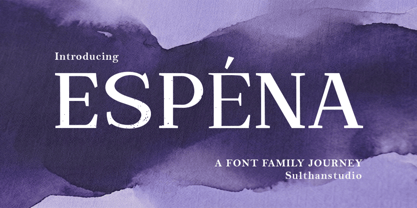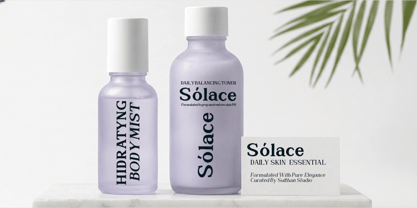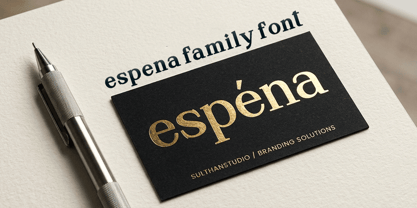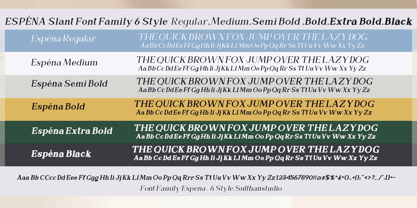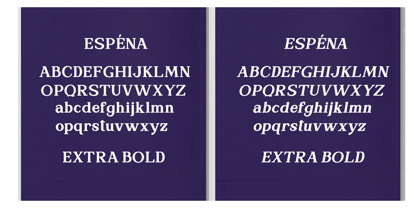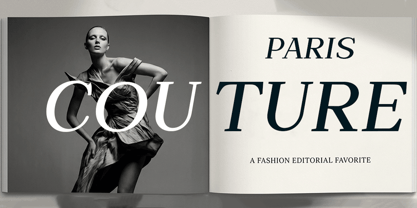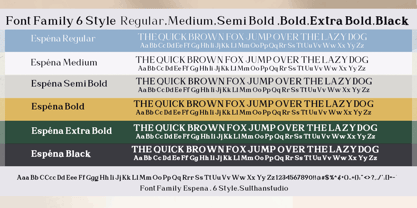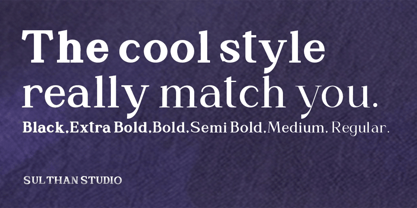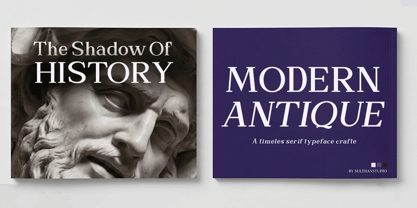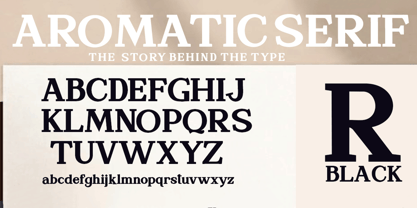
Espena
The Espena Font Family was designed by Nasrullah and published by Sulthan Studio. Espena contains 12 styles and family package options. More about this family
Espena Serif – A Warm Pause and Visual Serenity in 12 Styles
Inspired by the comforting warmth of a cup of "Sanger Panas" (Espena)—a local traditional coffee perfectly blended with a touch of smooth white milk—this serif font is designed to bring a sense of tranquility to your canvas. Much like taking a mindful pause in the middle of a chaotic day, Espena serves as a calming, beautifully balanced, and gracefully flowing visual experience.
Crafted over a long and meticulous development period, every curve, terminal, and counter has been refined with rigorous precision to achieve flawless visual harmony. Espena was created not just to look beautiful, but to ensure an effortless reading experience for audiences and absolute delight for the designers who use it.
The family is available in a versatile collection of 12 Styles (6 Upright weights and 6 matching Slant/Italic versions):
Espena Upright:
Regular | Medium | Semi Bold | Bold | Extra Bold | Black
Espena Slant:
Regular Slant | Medium Slant | Semi Bold Slant | Extra Bold Slant | Black Slant
Whether you are designing a high-end editorial layout, luxury branding, sophisticated logos, premium packaging, or serene social media quotes, Espena is your go-to choice for bringing a strong yet profoundly warm and welcoming voice to your work.